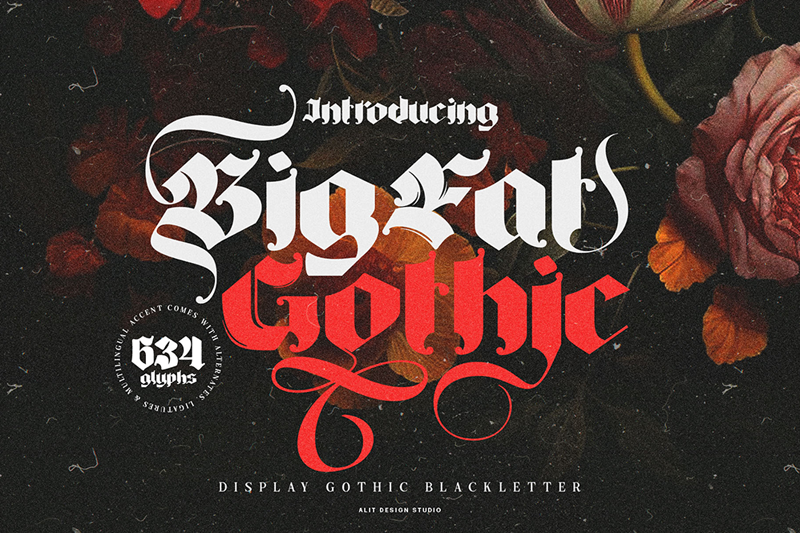
Introducing �Big Fat Gothic� � a font that commands attention with its bold and robust Blackletter theme. Designed to make a statement, this font is perfect for projects where you want your text to stand out and demand notice. This is font 100% free!! The donation is very appreciated. Please check here for more info about the license: https://alitdesign.net/license/ DOWNLOAD FULL VERSION: https://alitdesign.net/product/big-fat-gothic-blackletter-typeface/ visit my website for full version and commercial use: https://alitdesign.net/ follow my Instagram to update my portfolio: https://www.instagram.com/alitdesign_studio/ Email : info@alitdesign.net |